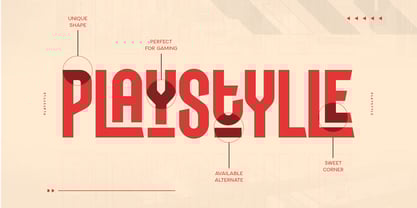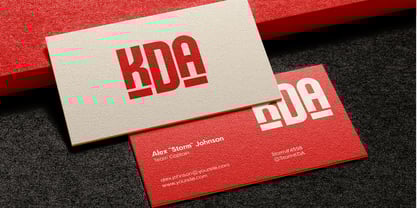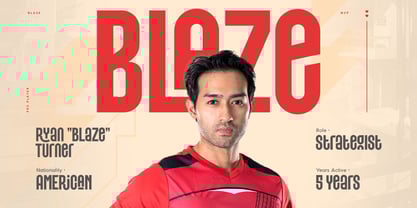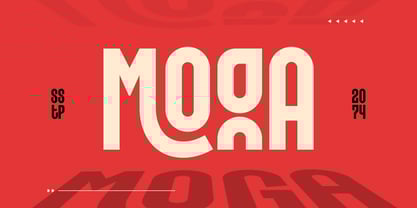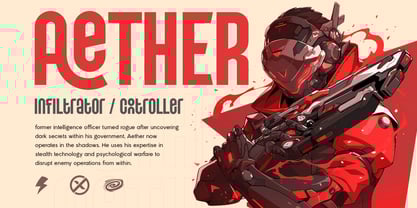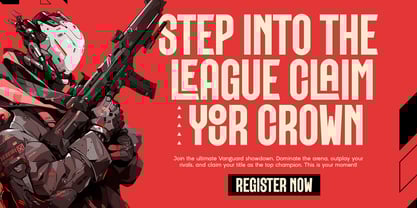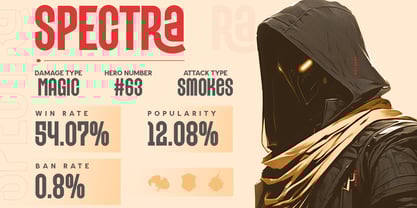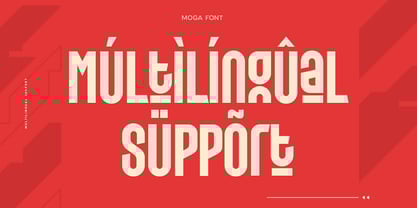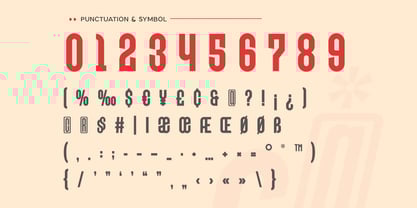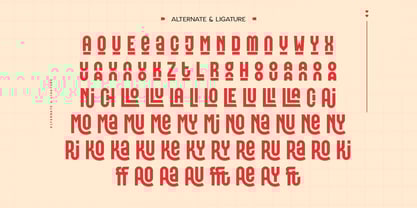
The Moga Font Family was designed by Zamroni Hamzah and published by Sensatype Studio. Moga contains 1 styles. More about this family
Moga - Condensed Font
Moga is a bold condensed gaming font designed to bring energy and action to your creative projects. Its robust, condensed letterforms give it a strong presence, making it ideal for gaming logos, esports branding, and action-oriented designs. Moga’s boldness allows it to shine in high-intensity environments, capturing attention and adding a dynamic feel to your work.
With its clean and powerful lines, Moga offers flexibility for both modern and futuristic designs, making it perfect for gaming posters, interface design, and immersive digital experiences. Whether you're designing a brand for a gaming event or a dynamic user interface, Moga’s bold style helps you communicate action and excitement.
Moga’s striking condensed form and bold character make it the ultimate choice for gaming projects. It’s built to stand out in competitive and fast-paced designs, ensuring your brand or message hits hard and leaves a lasting impression.
Moga Condensed Bold Gaming Font Features:
• Bold Condensed Ligature & Alternative Characters Ready
• Punctuation, Number, and Symbol
• Uppercase and Lowercase
• Multilingual Support
• Opentype Features